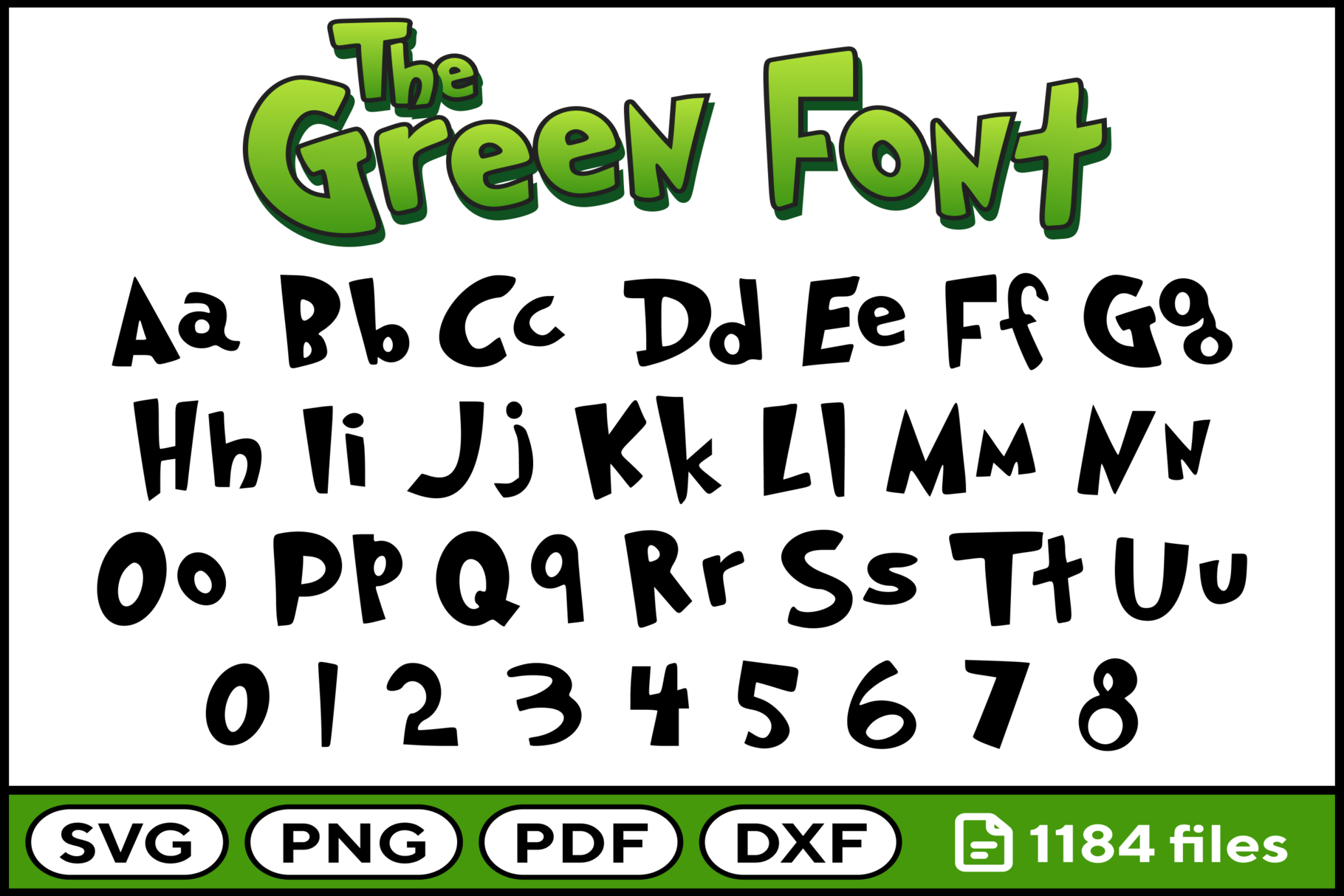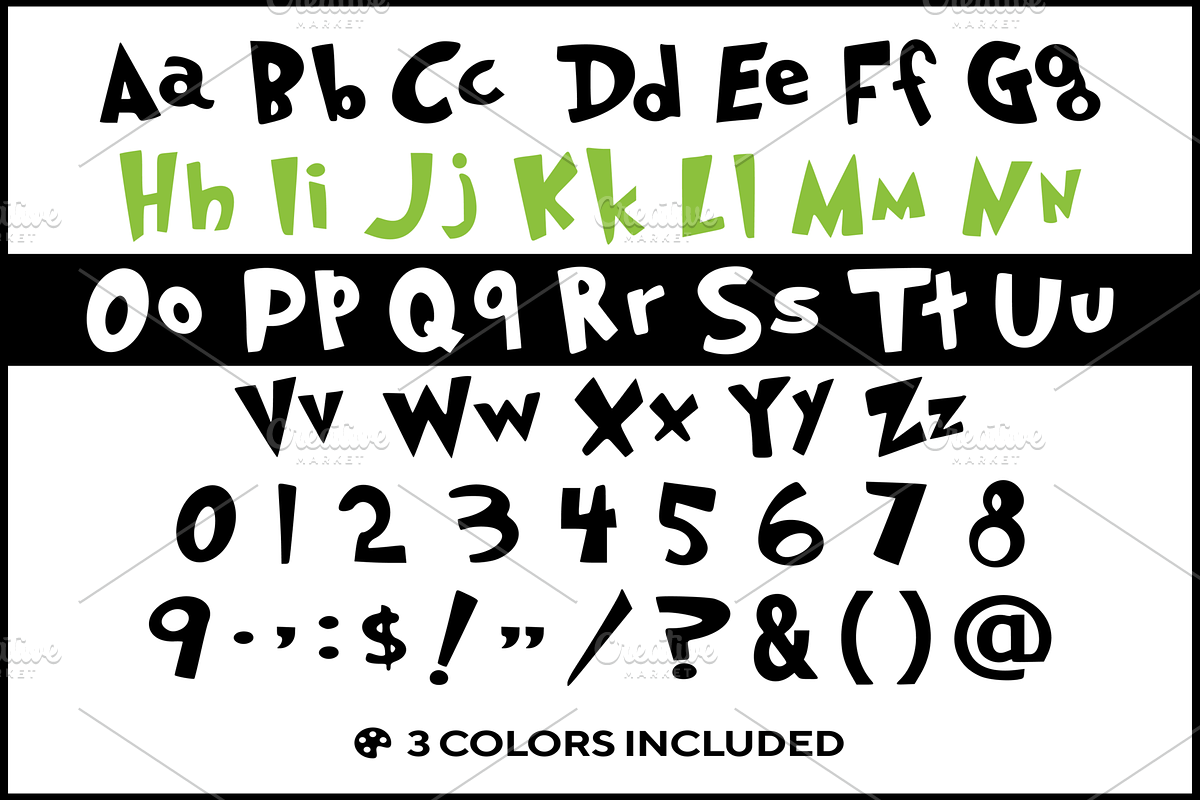
Xmas Green Font Svg Png Pdf Dxf
Cartoon Font, Alphabet. This High quality Xmas font images can be used for all of your Crafting needs! SVG and PNG images are perfect for t-shirt design, scrapbooking, photo album, card making, coffee mug designs, prints, anything you want to cut with your Cricut and Silhouette. The possibilities are endless!